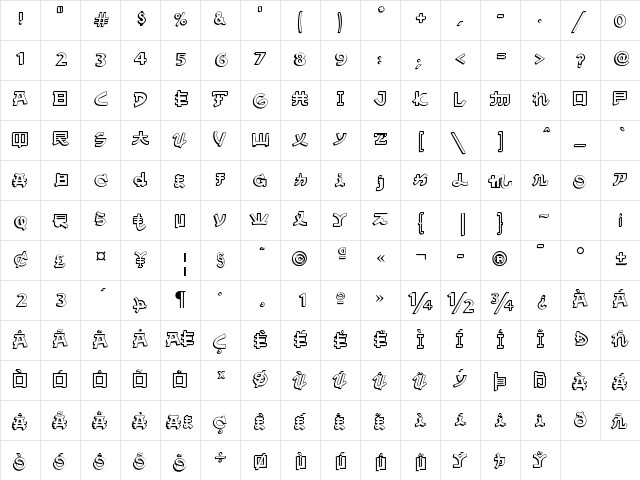
Almost Japanese Comic Regular
Design Context for Almost Japanese Comic Typeface
Almost Japanese Comic has an approachable, lighthearted character — its loose, expressive forms are well-suited to children's content, casual branding, and fun-first design.
Font Pairing: Pairs well with a rounded or humanist sans for body copy, maintaining the friendly tone without relying on Almost Japanese Comic to carry extended reading.
Pro Tip: Avoid using Almost Japanese Comic for long passages of text — it works best for headlines, labels, and short calls to action.